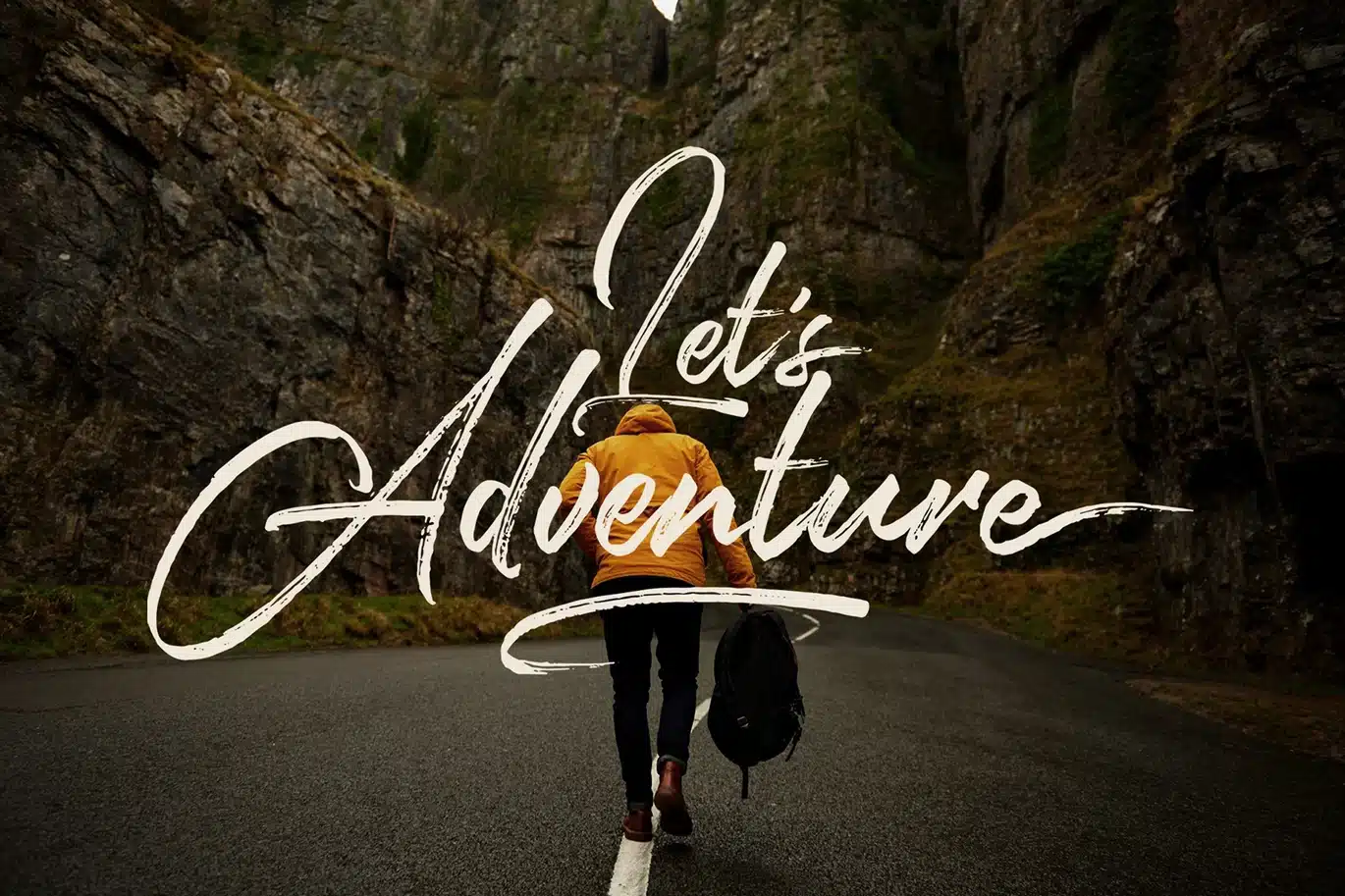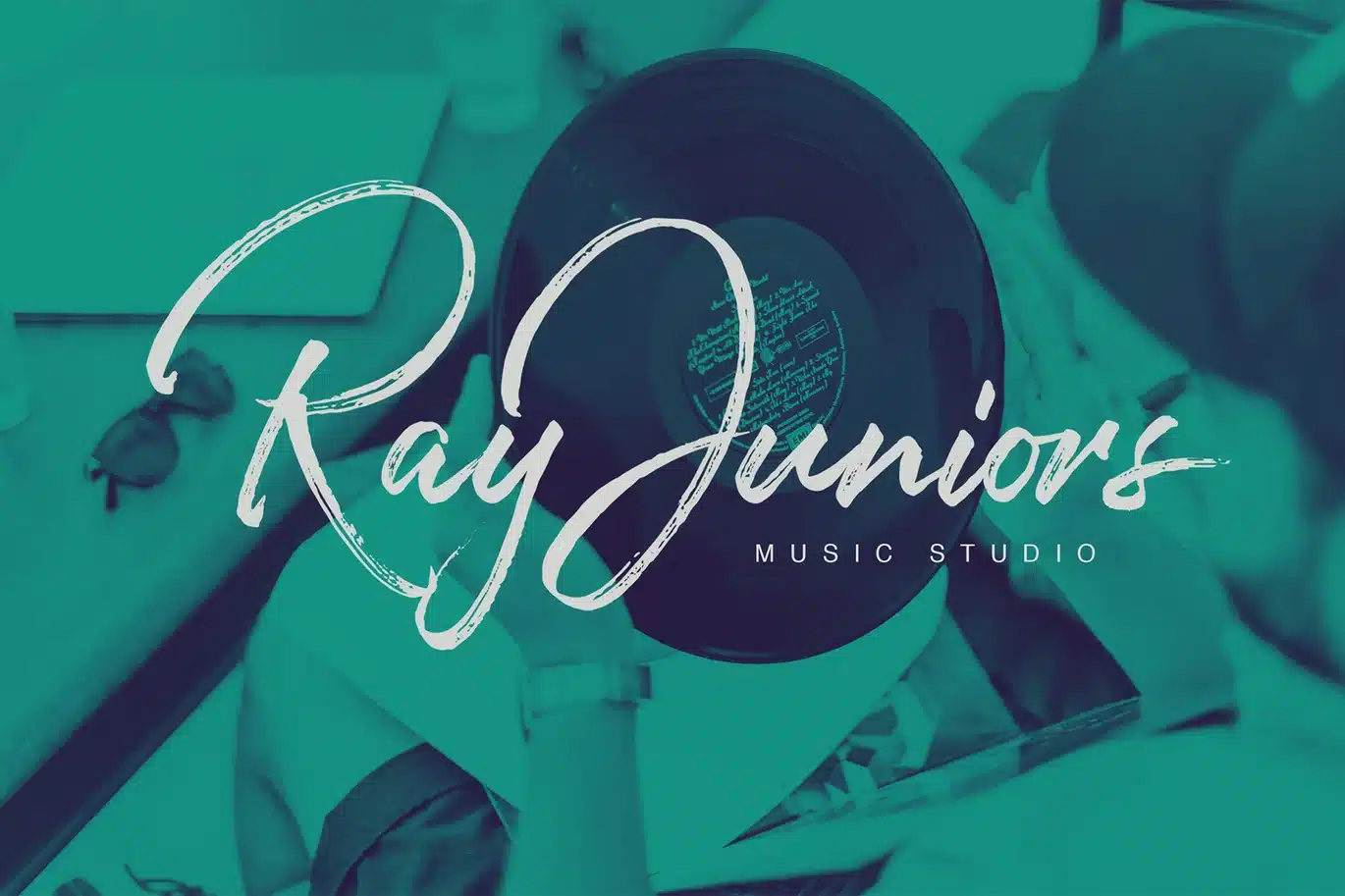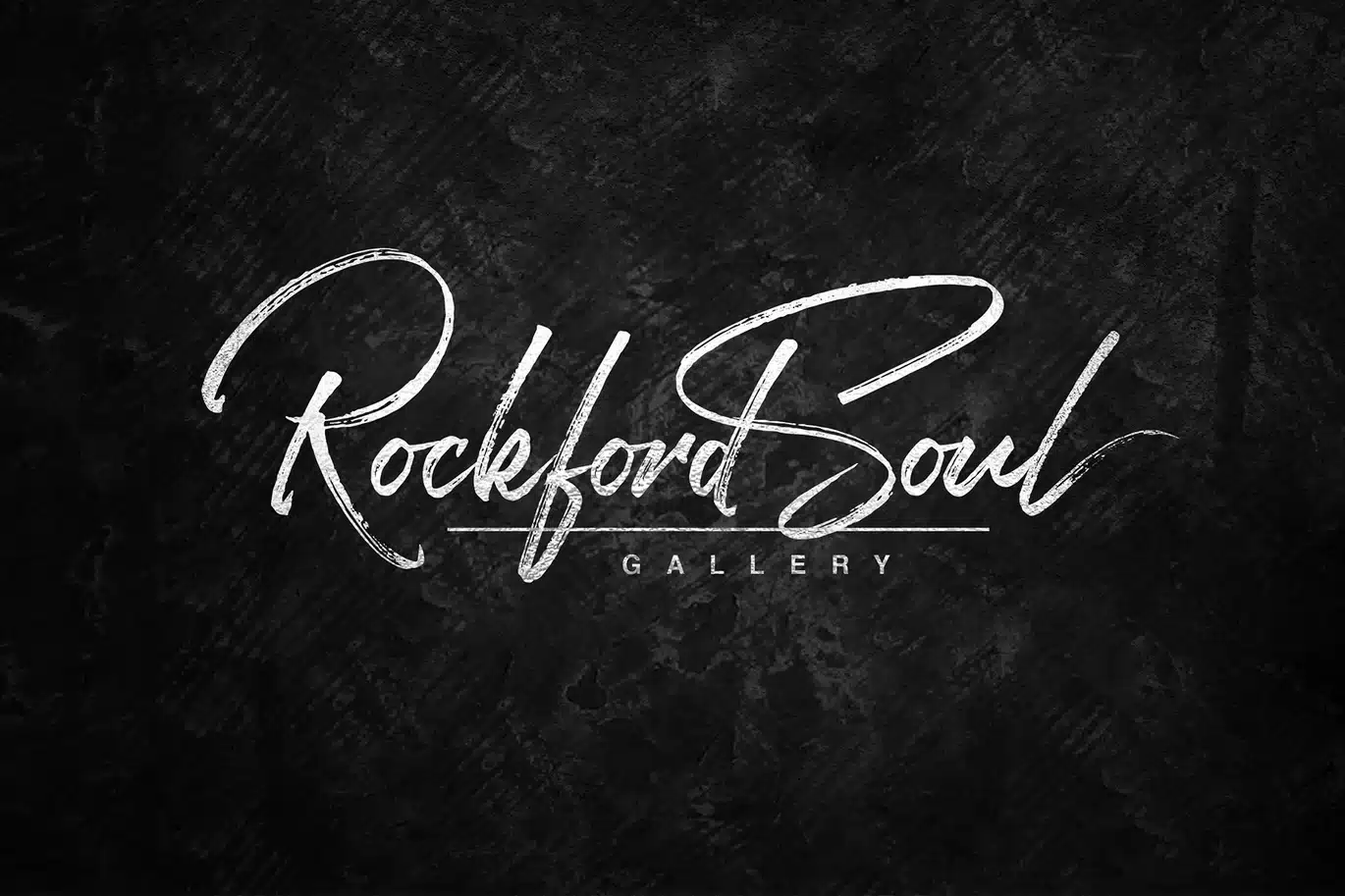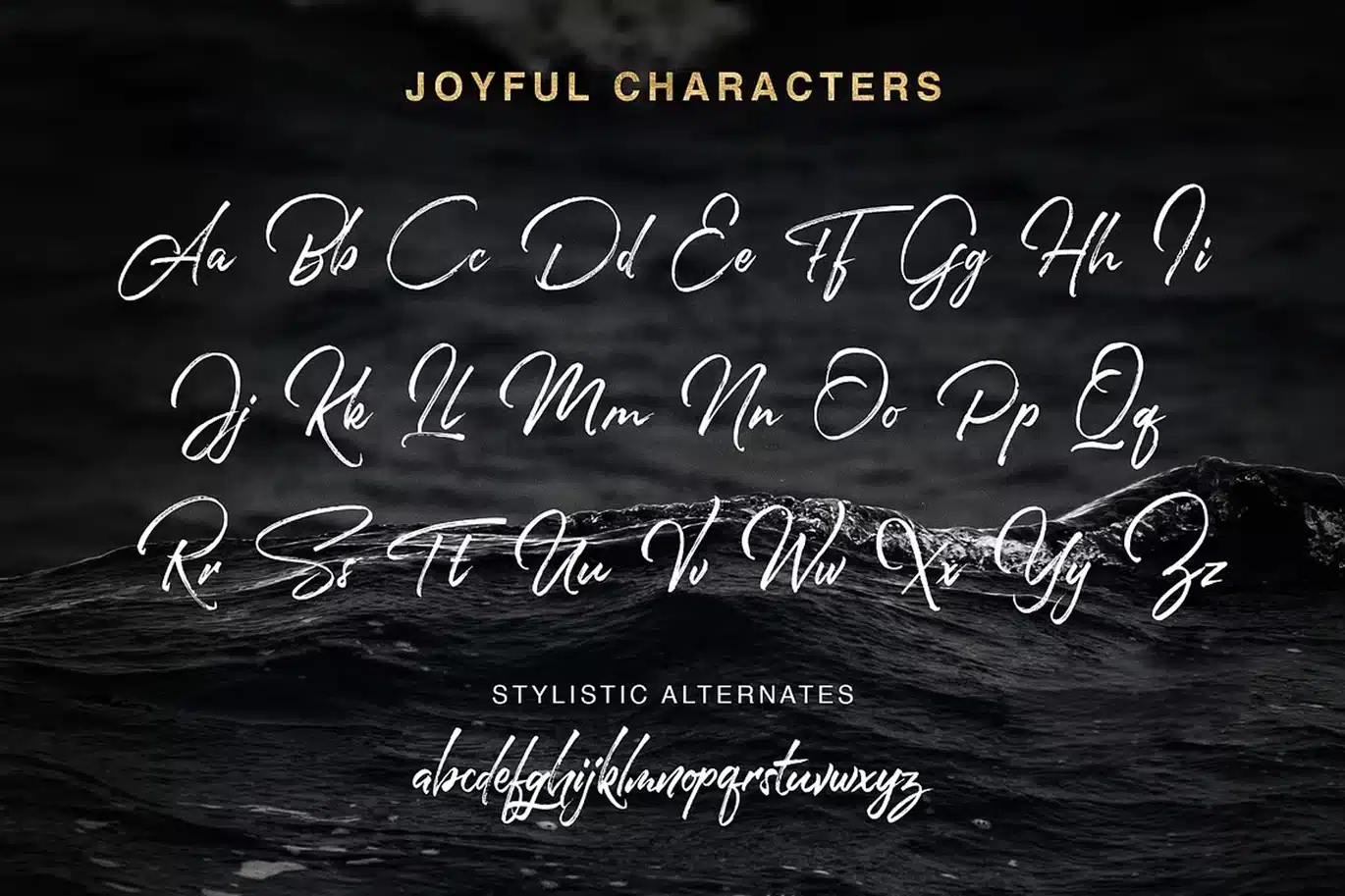
Joyful Script Font
Joyful Script is a handbrushed signature style font. Comes with upper and lowercase characters, punctuation glyphs, numerals, and supports international languages. Stylistic sets for several key lowercase characters are also available. Perfect for logo marks, typographic quotes over photos, book covers, and packaging design.